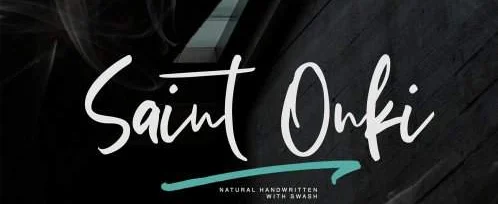
Saint Onki Complete Family
Saint Onki Complete Family is perfect for spiritual wellness centers, sacred meditation branding, divine religious materials, holy sanctuary signage, spiritual guidance publications, enlightened lifestyle campaigns, peaceful retreat promotions, sacred ceremony invitations, divine inspiration graphics, and transcendent spiritual marketing.
Saint Onki Complete Family is exciting because it embodies divine grace and spiritual enlightenment through sacred letterforms that convey holiness, inner peace, and spiritual transcendence with heavenly beauty. This spiritually designed typeface combines religious reverence with contemporary functionality, making it perfect for brands that want to communicate spiritual wisdom, divine connection, and sacred authenticity that inspires souls seeking spiritual growth and enlightenment.
The Saint Onki Complete Family includes sacred weights with spiritually-inspired character styling, featuring divine design elements and enlightened decorative variations. The font showcases holy design details, spiritually-optimized proportions, and transcendent character characteristics that create a comprehensive typographic system for spiritual and religious brand applications.
The spiritual sophistication of Saint Onki Complete Family makes it an invaluable tool for meditation centers, spiritual teachers, and religious organizations that need typography capable of communicating divine wisdom and sacred authenticity. The font's enlightened character helps establish connections with audiences seeking spiritual growth, divine guidance, and authentic religious experiences that nurture the soul and inspire spiritual transformation.
Meditation studios, spiritual retreat centers, and religious organizations consistently choose Saint Onki Complete Family for its ability to convey divine grace and spiritual sophistication through typography. The font excels in applications where establishing spiritual credibility and sacred appeal are essential to brand positioning, making it particularly effective for spiritual services, religious education, and wellness brands targeting spiritually-seeking consumers.
This font's comprehensive character set includes spiritually-styled letterforms, sacred numerals, divine punctuation marks, and holy symbols that support authentic spiritual typography composition. The consistent enlightened styling maintains the divine spiritual theme throughout all characters while ensuring professional readability across all spiritual and religious design projects requiring Saint Onki Complete Family Free Download functionality.